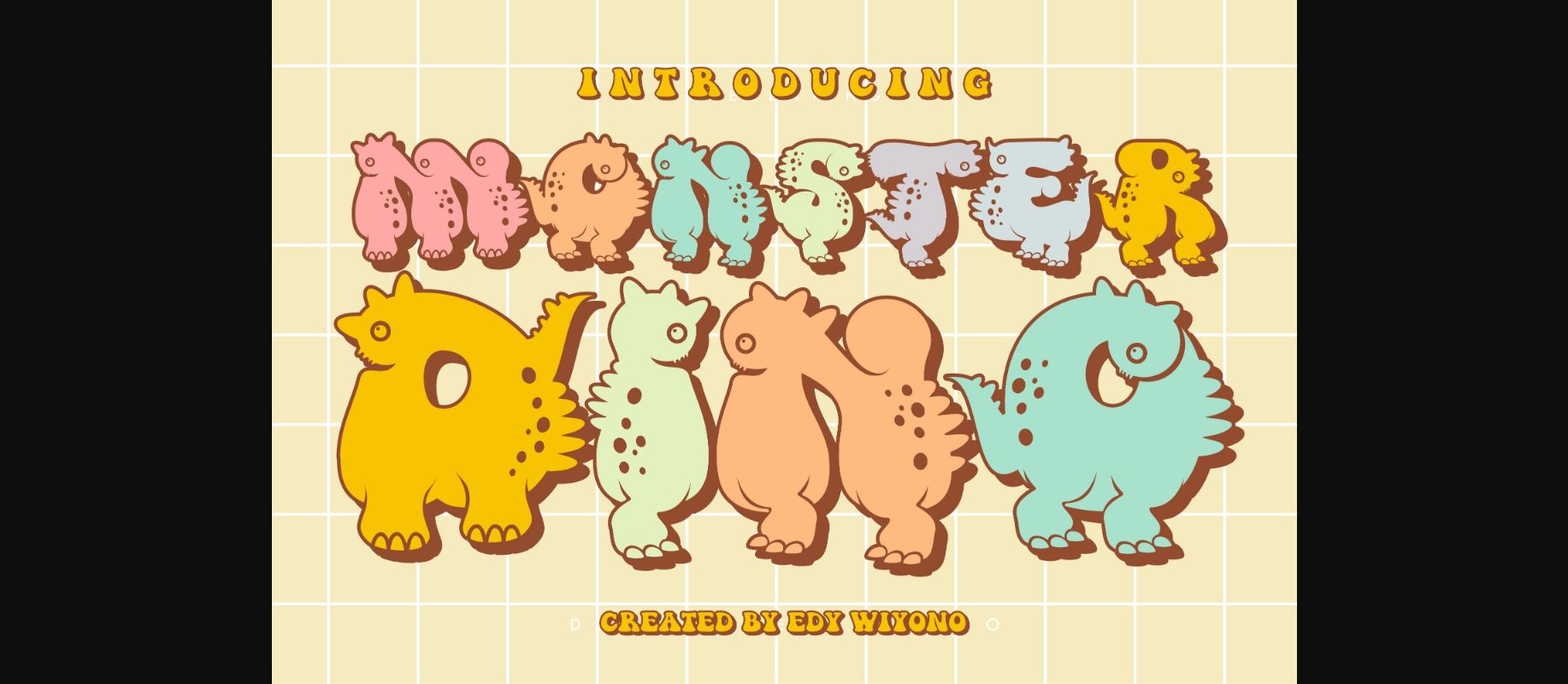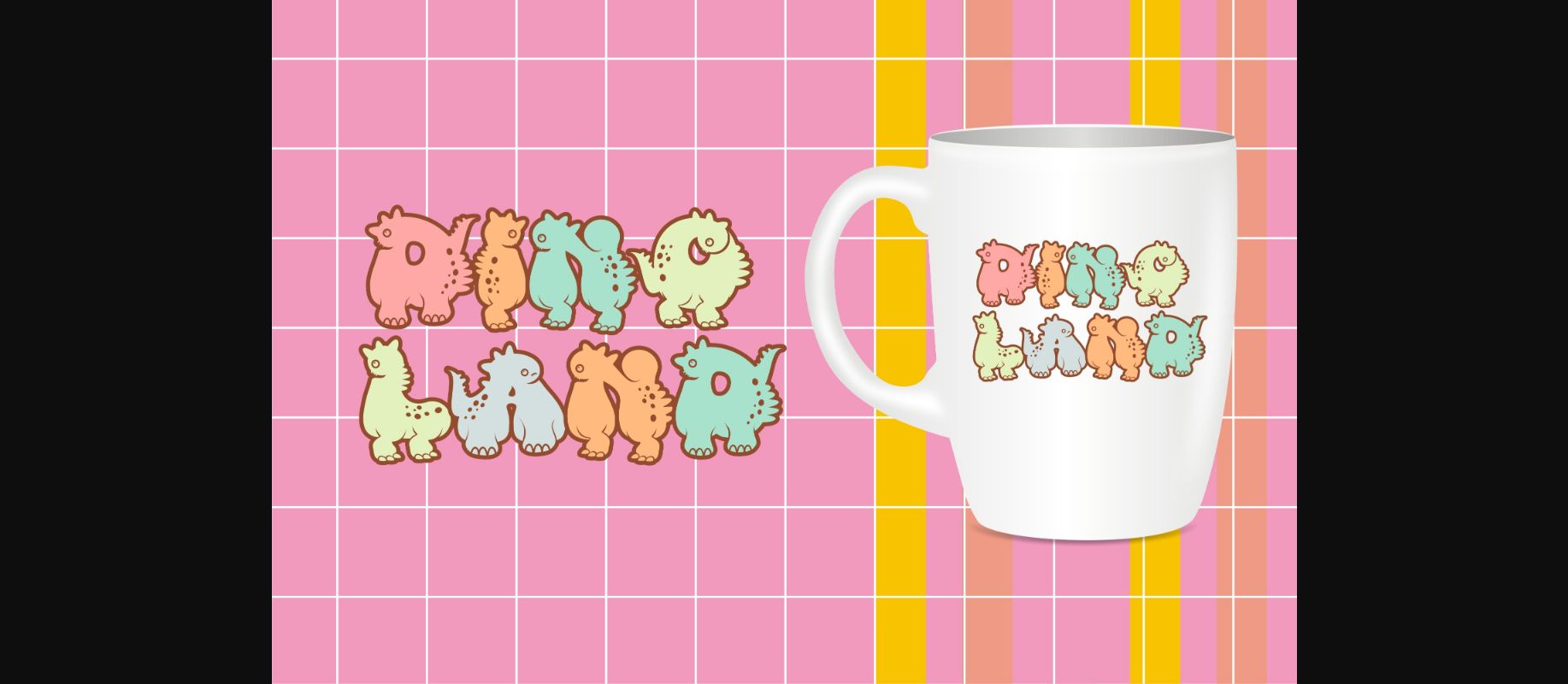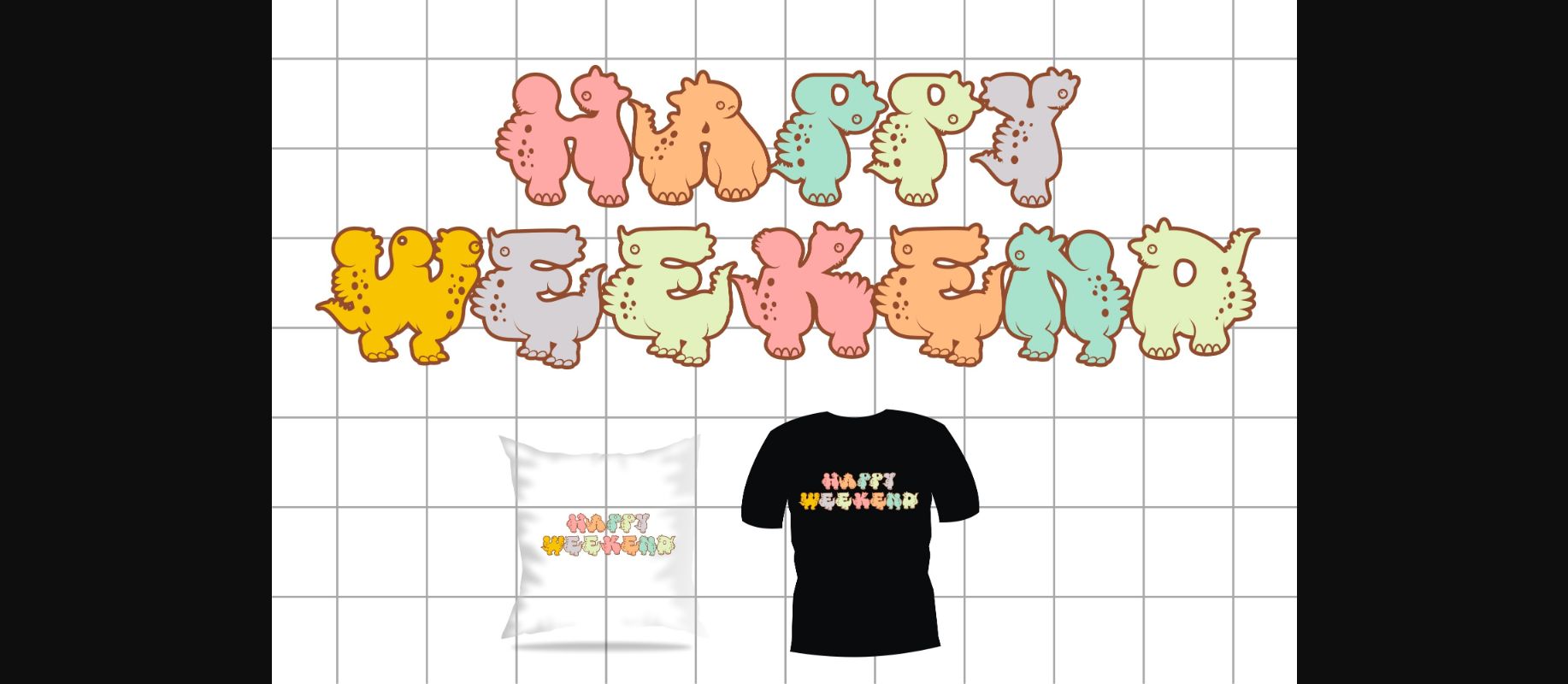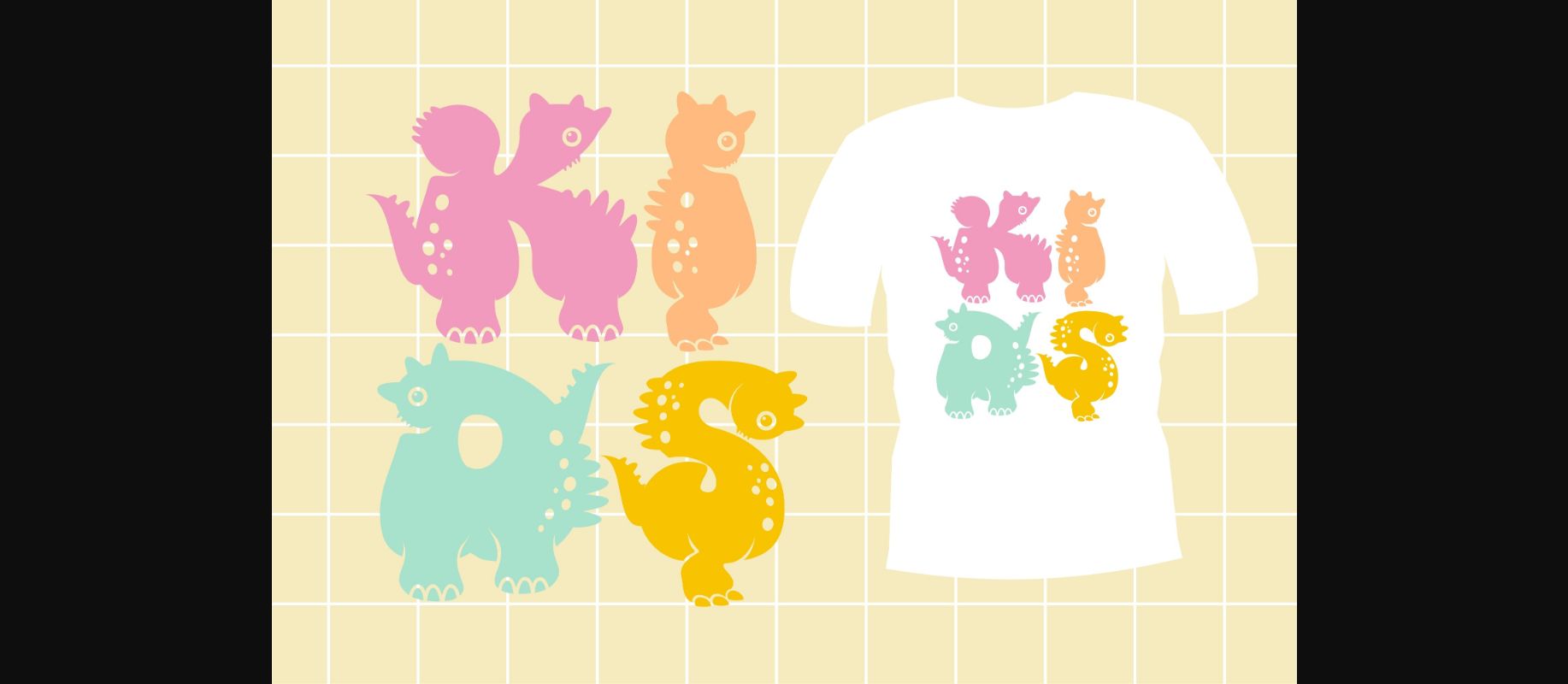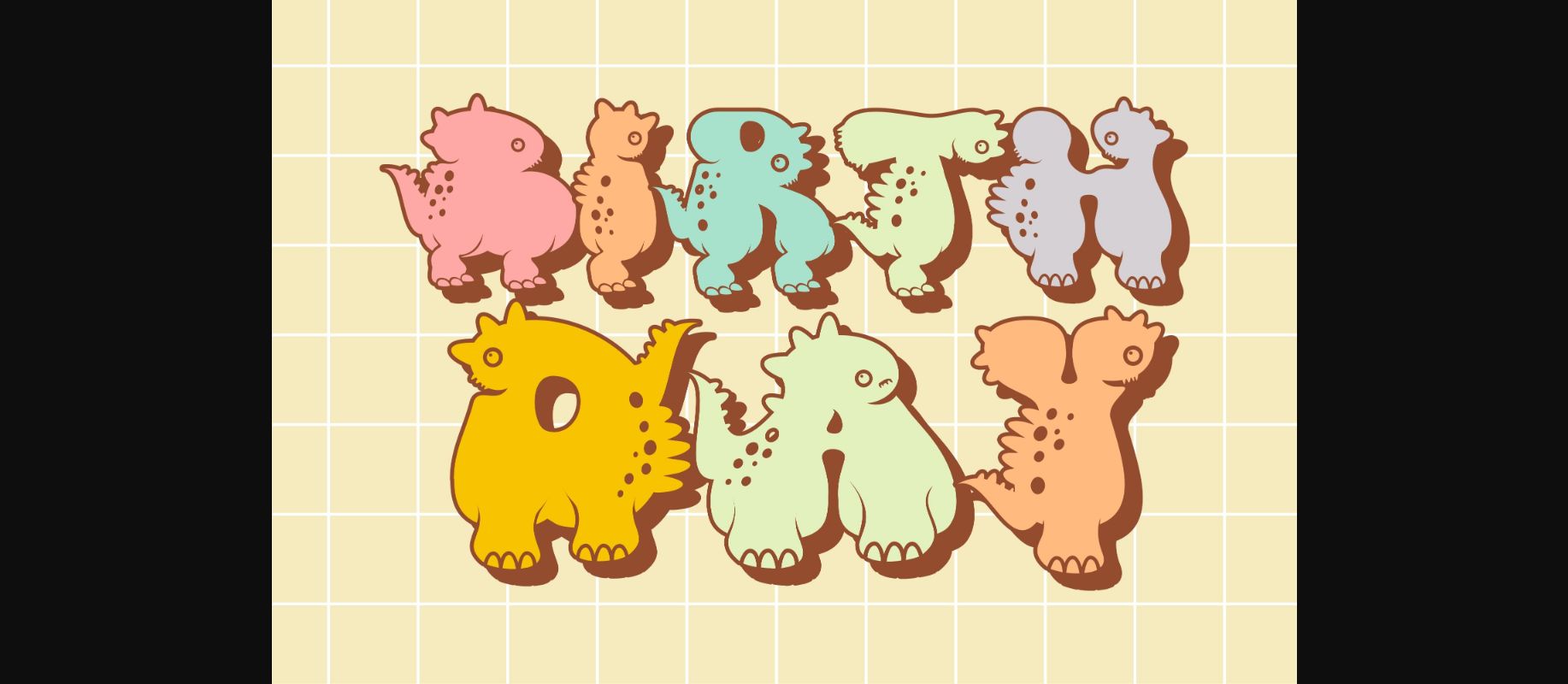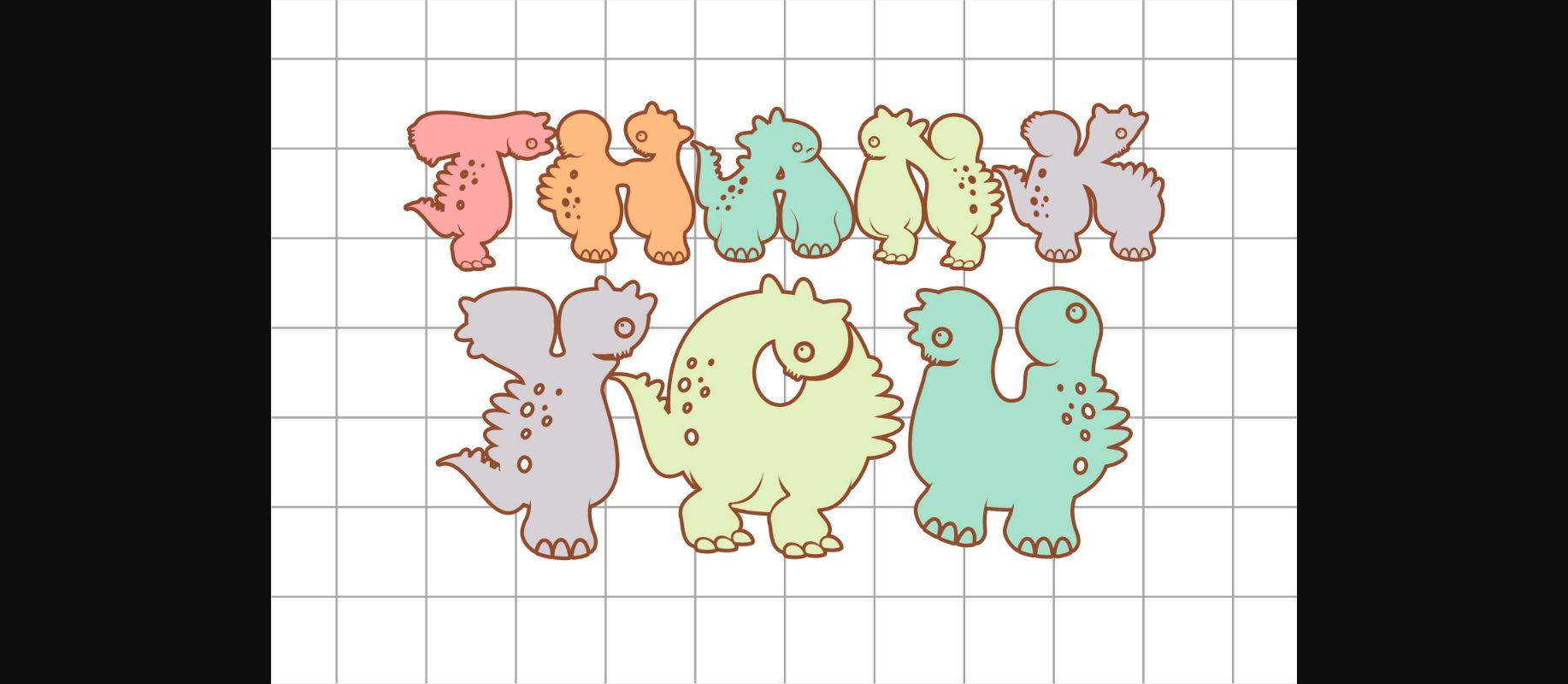
Monster Dino Font
About Monster Dino Font
Monster Dino is an amazing and cute decorative font. It features beautiful dinosaur clipart and it’s the perfect choice for dino-themed craft projects. You can use it for a variety of crafts, such as t-shirts, pillows, books and children’s themed crafts